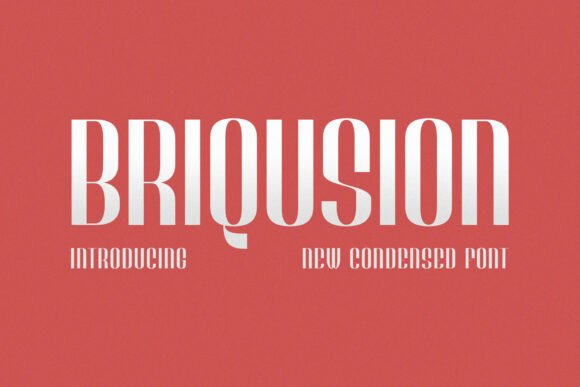
Briqusion Font: A Bold and Stylish Condensed Sans Serif Font
Briqusion is a modern sans serif font that has taken the design world by storm with its unique blend of retro aesthetics and modern minimalism. This bold and stylish condensed font is perfect for designers looking to add a distinctive twist to their projects. In this article, we’ll dive into the features and benefits of Briqusion, and explore its various uses in design.
Key Features of Briqusion Font
- Bold and Stylish: Briqusion is a bold and stylish condensed sans serif font that makes a statement.
- Retro Aesthetics: The font blends retro aesthetics with modern minimalism, giving it a unique look.
- Uppercase and Lowercase Characters: Briqusion features both uppercase and lowercase characters, making it versatile for various design projects.
- Tight Proportions: The font has tight proportions, which make it perfect for display headlines and titles.
- Clean Lines and Striking Curves: Briqusion features clean lines and striking curves that give your design a bold personality.
Uses of Briqusion Font in Design
Briqusion is a versatile font that can be used in various design projects, including:
- Posters: Briqusion is perfect for creating eye-catching posters that demand attention.
- Logo Designs: The font’s bold and stylish look makes it ideal for logo designs that need to stand out.
- Editorial Titles: Briqusion can be used to create striking editorial titles that add a touch of personality to your content.
- Album Art: The font’s retro aesthetics and modern minimalism make it perfect for album art and music-related designs.
- Fashion Branding: Briqusion can be used in fashion branding to add a touch of boldness and style.
- Display Headlines: The font is perfect for display headlines that need to make a statement.
Typography and Readability
Briqusion’s typography is clean and modern, making it easy to read even at small sizes. The font’s tight proportions and clean lines ensure that your text is legible and visually appealing.
The font’s x-height and ascender height are well-proportioned, making it easy to read in various contexts. Whether you’re using Briqusion for body text or display headlines, you can be sure that your text will be clear and readable.
Design Tips for Using Briqusion Font
Here are some design tips to help you get the most out of Briqusion:
- Use it for Display Headlines: Briqusion is perfect for display headlines that need to make a statement.
- Pair it with Simple Imagery: Briqusion’s bold and stylish look pairs well with simple imagery and clean graphics.
- Experiment with Colors: The font looks great in bold and bright colors, so don’t be afraid to experiment.
- Use it Sparingly: Briqusion is a bold font, so use it sparingly to avoid overwhelming your design.
Font Pairing Suggestions
Briqusion can be paired with other fonts to create a unique and visually appealing design. Here are some font pairing suggestions:
- Open Sans: A clean and modern sans serif font that pairs well with Briqusion’s bold and stylish look.
- Lato: A sleek and modern sans serif font that complements Briqusion’s retro aesthetics.
- Merriweather: A classic serif font that pairs well with Briqusion’s bold and stylish look.
Briqusion is a bold and stylish condensed sans serif font that blends retro aesthetics with modern minimalism. Its unique features and versatility make it perfect for various design projects, from posters and logo designs to editorial titles and display headlines. By following the design tips and font pairing suggestions outlined in this article, you can get the most out of Briqusion and create stunning designs that demand attention.